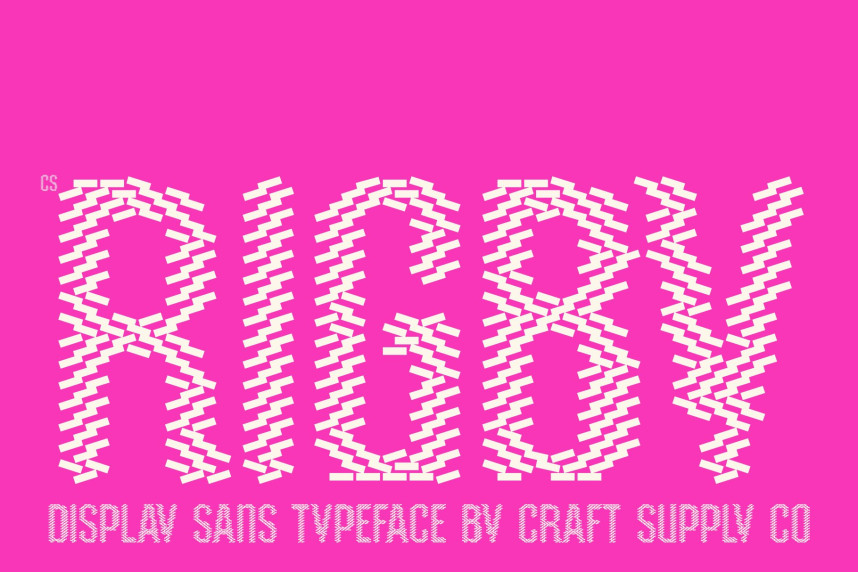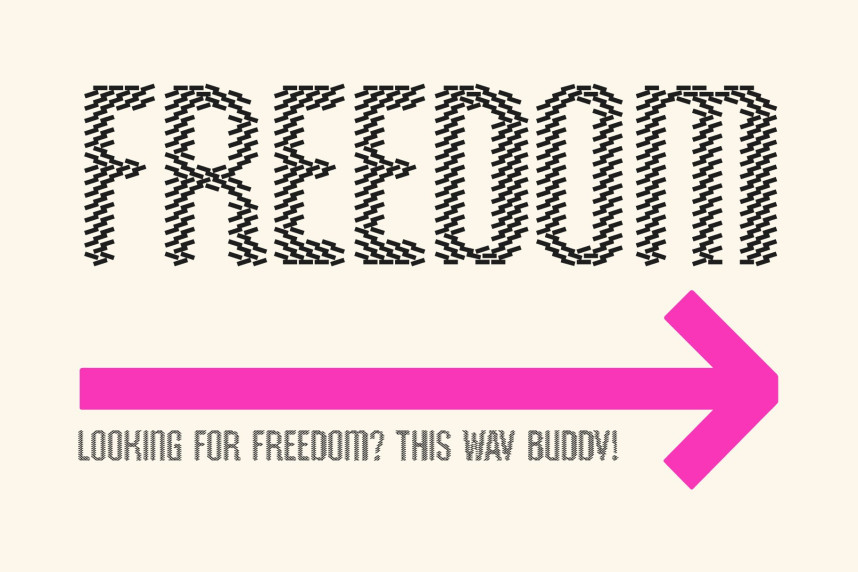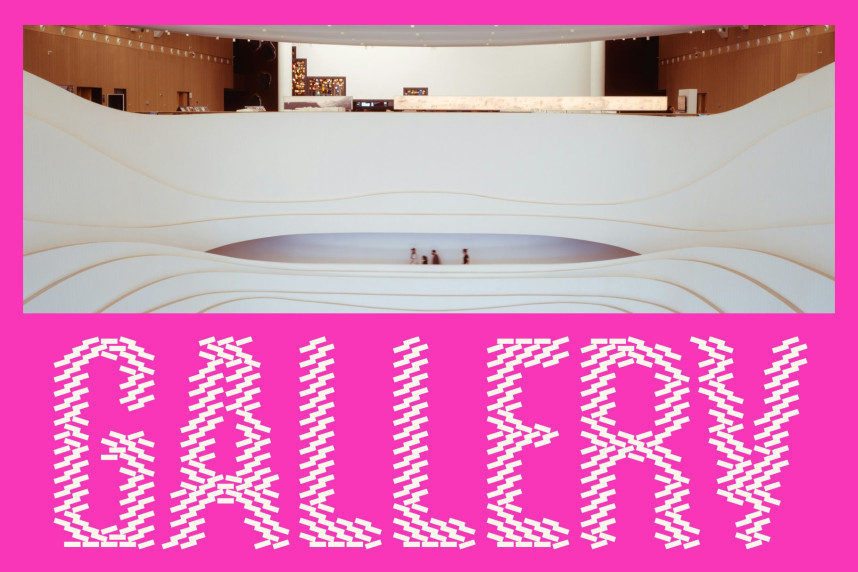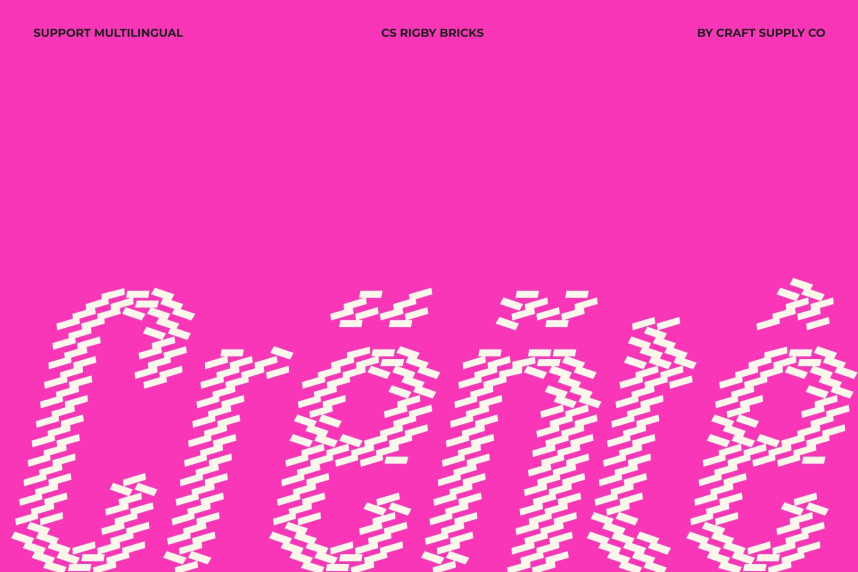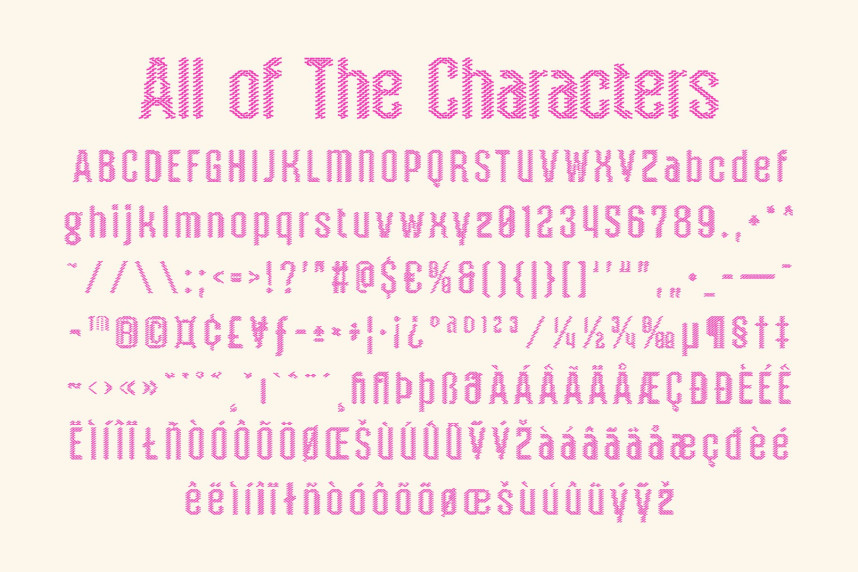
CS Rigby Bricks Font
CS Rigby Bricks Font – Condensed Sans Serif Font: Where Technical Strength Meets Decorative Brick Texture
Compact Industrial Forms with Bold Character
This is a condensed sans serif display font built with a bold industrial spirit and a distinctly technical attitude. Its compact proportions, strong geometry, and confident structure create a commanding visual presence that feels modern, powerful, and highly functional. Designed to project strength while maintaining a playful edge, this typeface balances technical precision with creative energy.